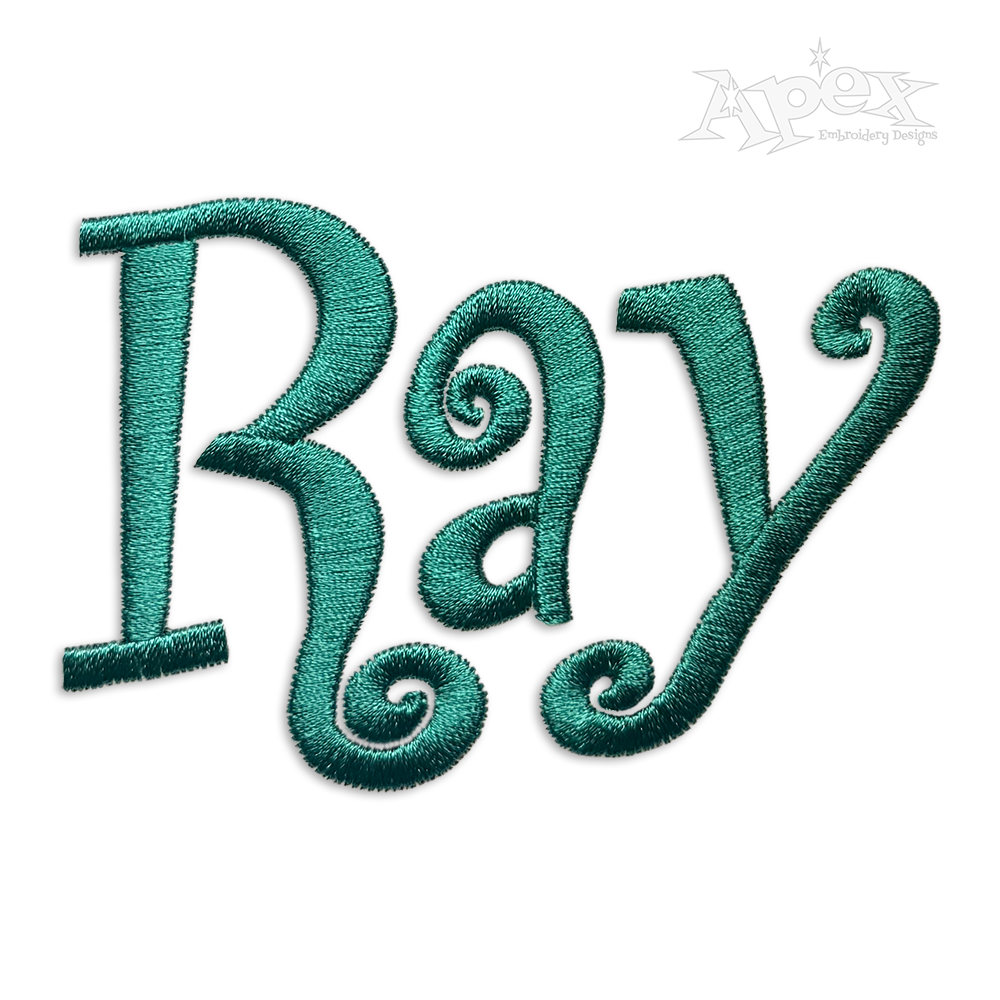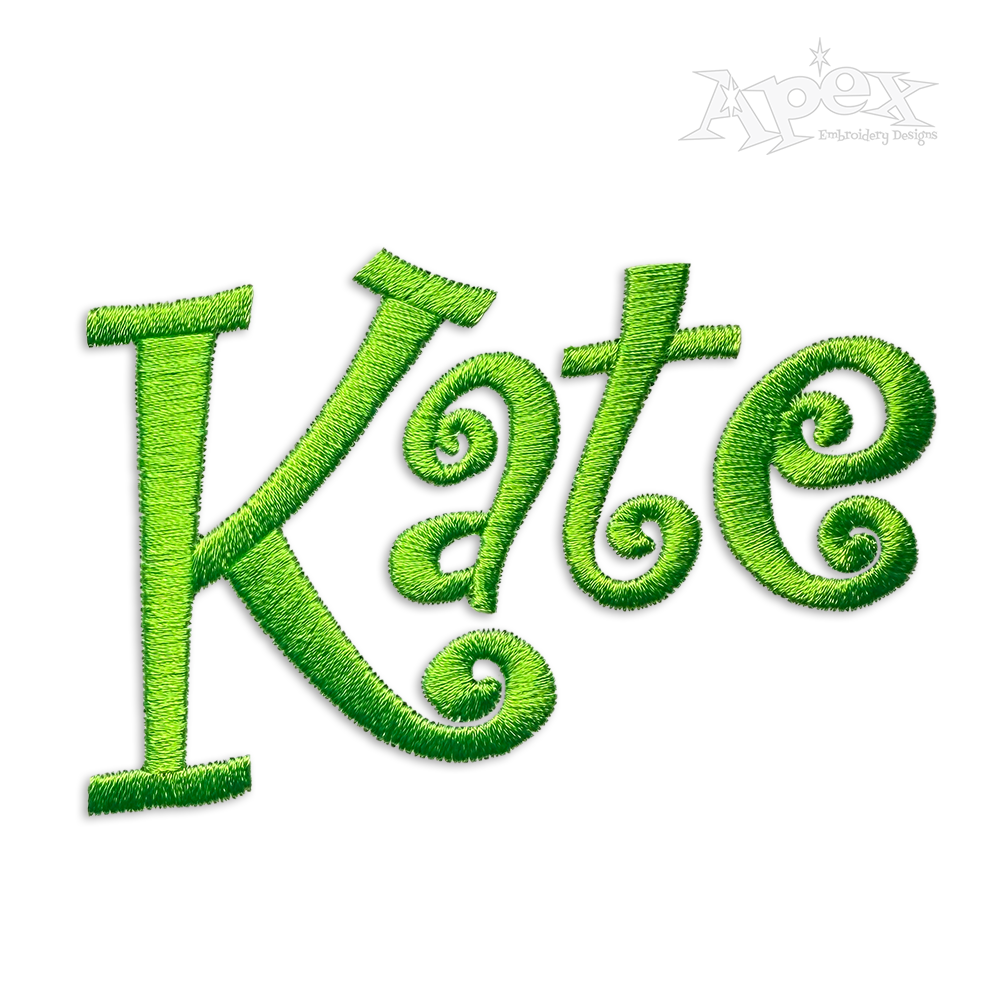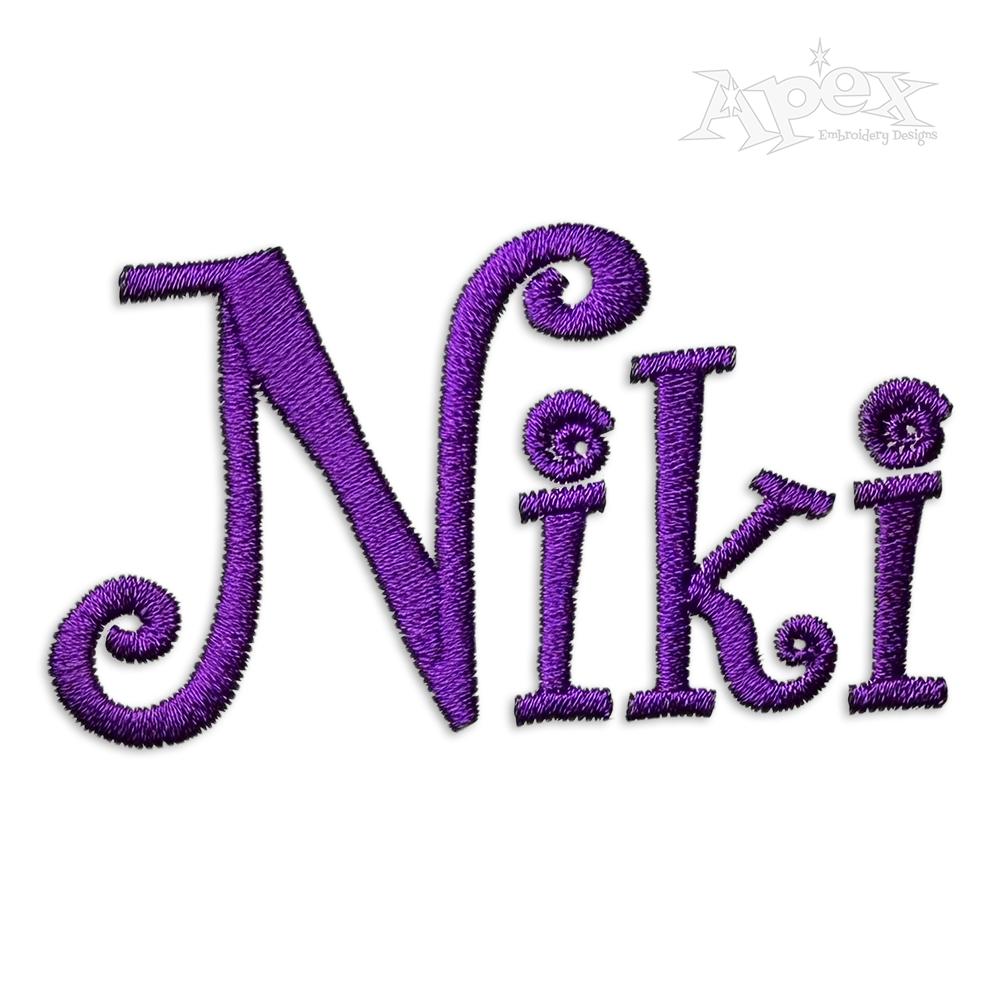
Bold Pinellas Embroidery Font
Inspired by the sun-drenched architecture and effortless luxury of coastal Florida promenades, the Bold Pinellas Embroidery Font was digitized to make an unforgettable visual statement. Rooted in mid-century coastal charm yet decidedly modern in its execution, this design captures an air of seaside retreat and tailored sophistication. Each letterform stands proud and poised, balancing commanding weight with graceful curves that invite thread to catch the light with unmatched brilliance. Whether gracing sun-washed linen or structured canvas, it turns bespoke personalization into high-end textile art.
Bold Pinellas Craft & Letterform Details
What sets Bold Pinellas apart in the hoop is the meticulous engineering hidden beneath its lustrous surface. Bold typography presents a unique challenge in embroidery: wide satin columns risk snagging or pulling fabric if not properly reinforced. To solve this, every letter has been drafted with custom-calibrated contour underlay and foundational lattice stitching that anchors the fabric weave, creating a smooth, elevated foundation before the topstitch ever lands.
As your embroidery needle glides through the alphabet, you will notice carefully calculated stitch angles that pivot gracefully around corners and curves. This intentional pathing maximizes the natural sheen of your embroidery thread, allowing light to flow across the satin columns with liquid-smooth clarity. Terminals are cut clean, serifs remain sharp, and inner counters stay open and readable even on textured fabrics. Bold Pinellas delivers the perfect harmony of robust weight, refined elegance, and effortless stitchability.